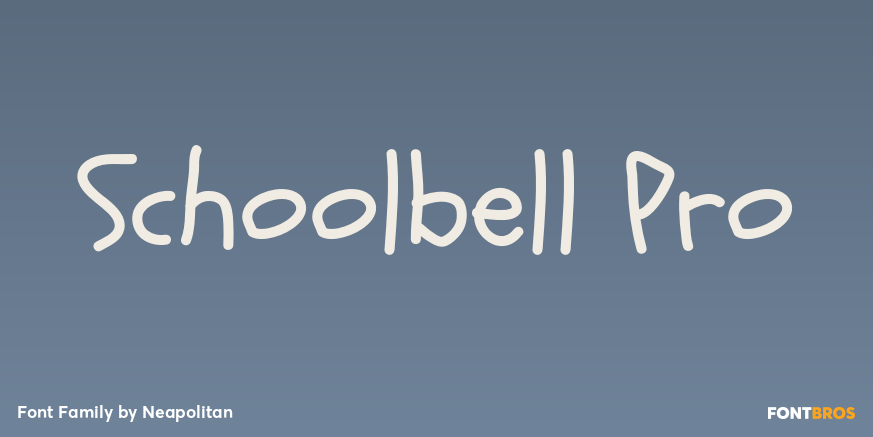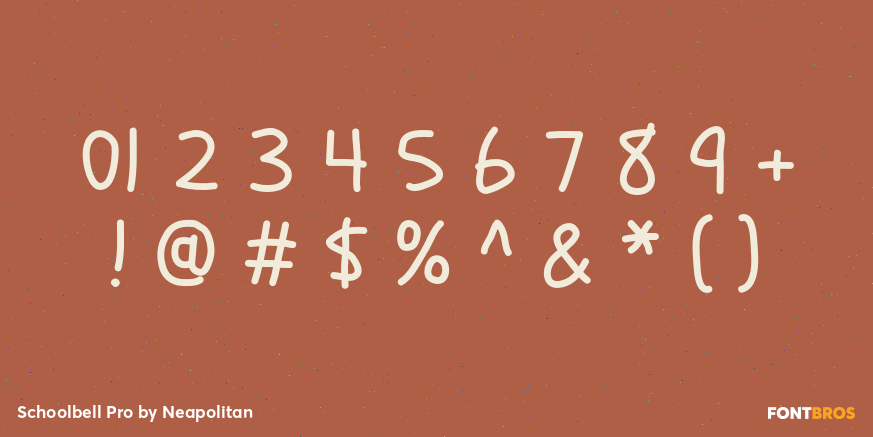
Schoolbell Pro
Font Family by Neapolitan
Do you hear it? It's the sweet sound that let's you know when it's time to eat lunch in the cafeteria, head out to recess, or hop on the bus to head home! It's Schoolbell, the delightfully playful handwriting font from the finest lettering artist in the 2nd Grade!
The Pro version has been expanded and enhanced with loads of dynamic OpenType ligatures and more!